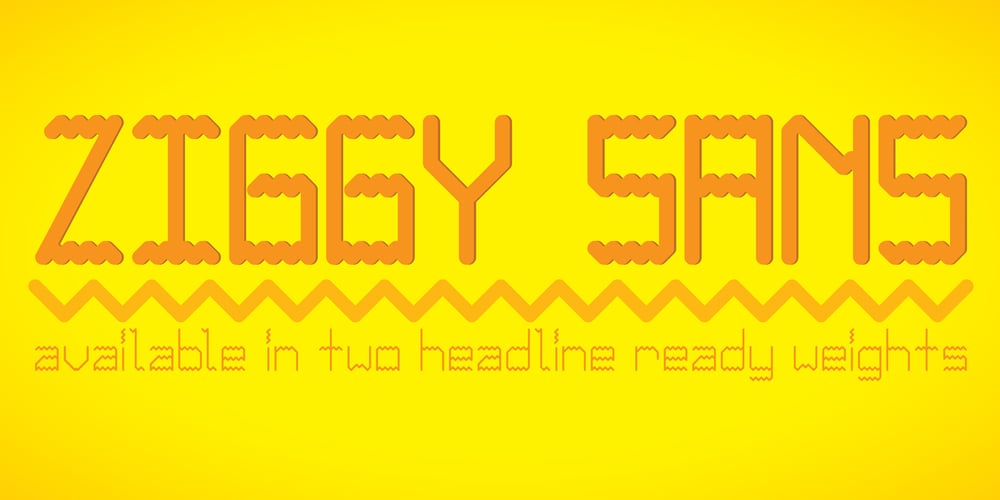
Ziggy Sans Font Family was designed by Jace Inman and published by Just Jace. Ziggy Sans contains 2 styles and family package options. Ziggy Sans is my debut font, a straightforward headline typeface. It was devised from simple sketches and came together fairly smoothly, but very slowly. Each letterform is comprised of only two shapes for maximum consistency, and every letter combination has been painstakingly kerned by hand.